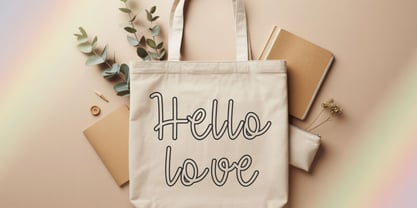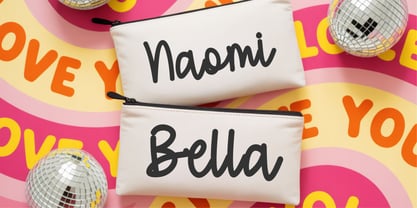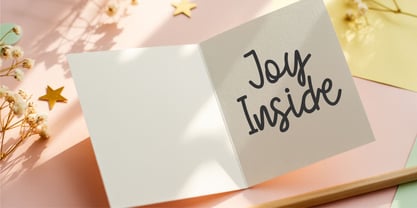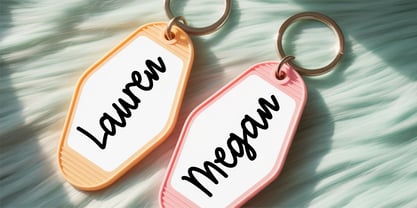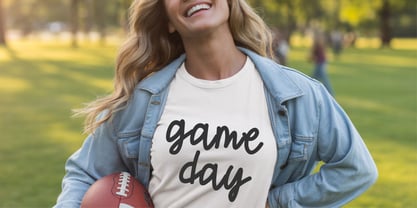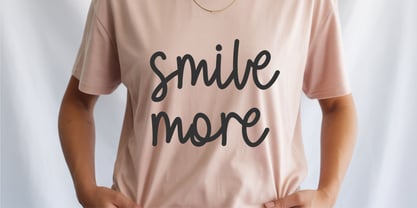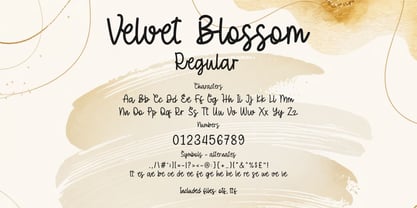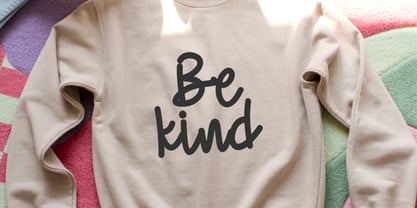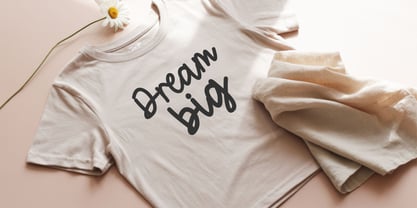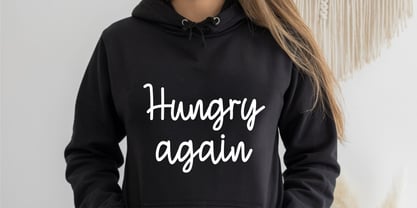
Velvet Blossom
The Velvet Blossom Font Family was designed by Tony Balios and published by Tonis Art Studio. Velvet Blossom contains 3 styles and family package options. More about this family
Velvet Blossom is a charming handwritten script font family that infuses warmth and personality into every project. Featuring three distinct styles — Bold, Lite, and Line — this font showcases smooth strokes and rounded curves, creating a naturally friendly handwritten aesthetic. Ideal for a variety of applications such as T-shirts, mugs, stickers, planners, journals, kids’ prints, tote bags, quotes, wedding stationery, baby items, and Cricut or Silhouette crafts, Velvet Blossom stands out with its clean outlines that cut beautifully. Its modern and gentle handwriting style, combined with versatile options, makes it perfect for branding, social media, product packaging, and everyday creative endeavors. Velvet Blossom is crafted to ensure that every word appears soft, stylish, and full of character.
Velvet Blossom